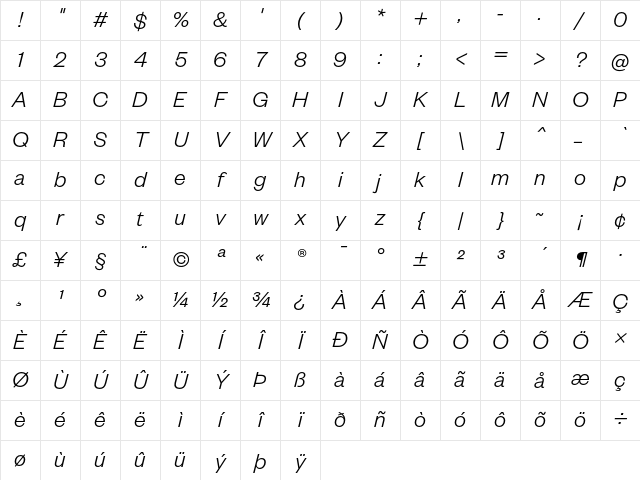
Complete Founders Grotesk Light Italic glyph index. Displaying only characters natively supported by Founders Grotesk Light Italic font.
Founders Grotesk Light takes a clean, functional approach - its unadorned letterforms prioritise legibility and work reliably across screen and print environments. The slanted form adds forward momentum and visual energy. Its slender proportions lend an understated elegance to any composition.
Font Pairing: Pair Founders Grotesk Light with a medium or bold serif for headlines - the weight contrast creates an elegant, high-end feel.
Pro Tip: Use Founders Grotesk Light with generous tracking and line-height for the most luxurious effect - light sans-serifs reward spacious, considered layouts.